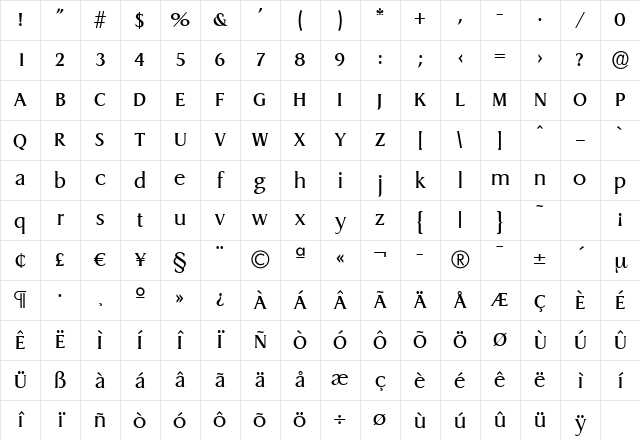
Complete AaronBecker Regular glyph index. Displaying only characters natively supported by AaronBecker Regular font.
AaronBecker is a composed and adaptable typeface that performs quietly and consistently across a wide range of design contexts.